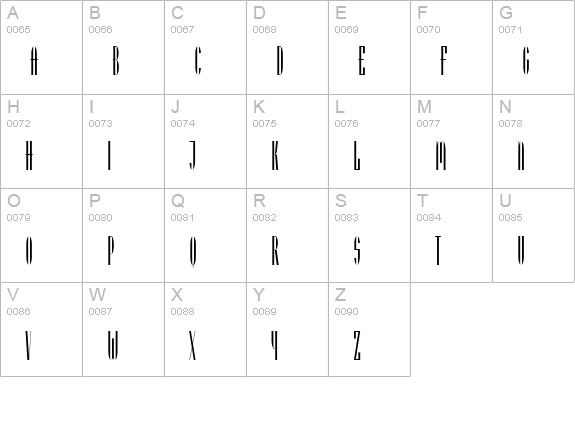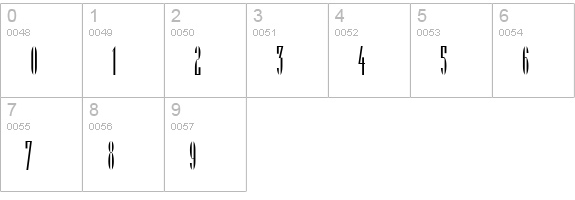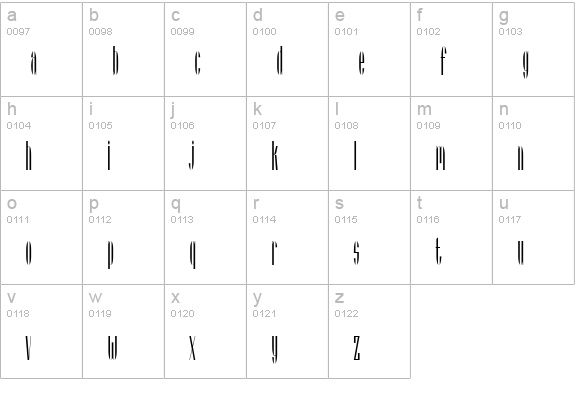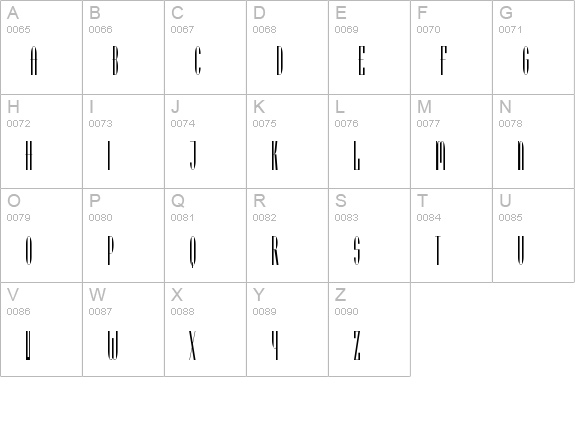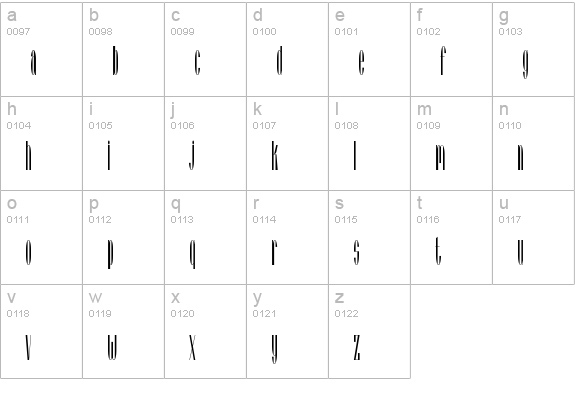
Spitbol Alternate SSi Font Details
Introducing Spitbol Alternate SSi font, a captivating and versatile typeface that effortlessly combines elegance with a touch of playfulness. Designed with meticulous attention to detail, this font is perfect for adding a unique and eye-catching element to any project. With its distinctive letterforms and stylish curves, Spitbol Alternate SSi font offers a refreshing twist on traditional typography. Its alternative characters and ligatures provide endless creative possibilities, allowing you to customize your designs and bring them to life. Whether you're designing a logo, a poster, a website, or any other creative endeavor, Spitbol Alternate SSi font will instantly elevate your work to the next level. Its bold yet refined presence creates a sense of sophistication and professionalism, making it suitable for a wide range of applications. But what makes Spitbol Alternate SSi font even more remarkable is that it's available for free! Yes, you read that right. This extraordinary font can be freely downloaded at FontsMarket.com, a trusted source for high-quality fonts. So why wait? Take your designs to new heights with Spitbol Alternate SSi font. Download it now and let your creativity soar.